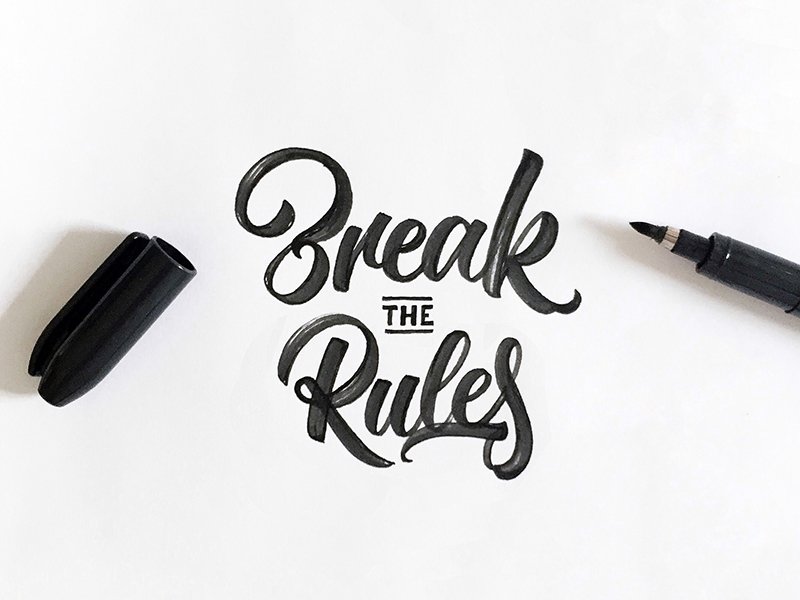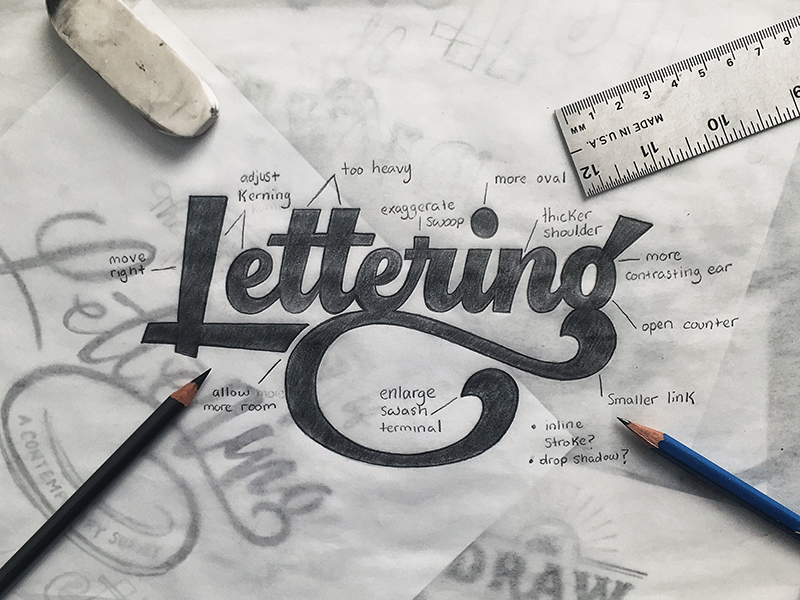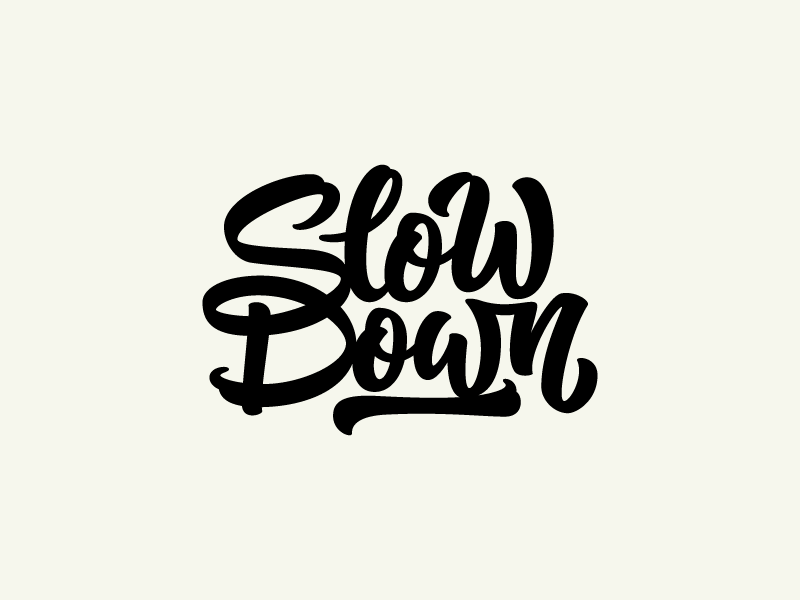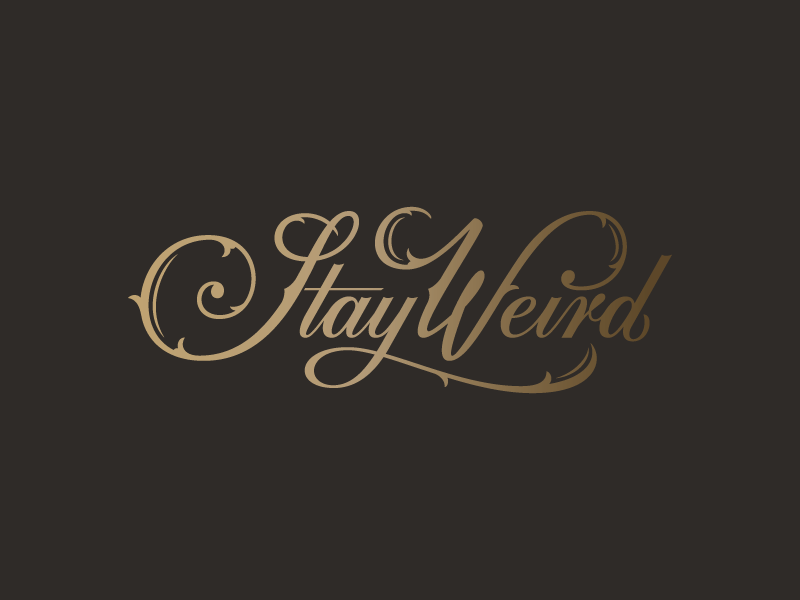
Lettering Legend - Colin Tierney Interview
It's great to be starting the new year with a new 'Lettering Legend'. Colin Tierney has been responsible for some very creative and original lettering over the past couple of years. He has also inspired many with his Crayola pen experimentations. Often specialising in brush style lettering Colin has produced a body of work to be proud of.
Although Colin makes and shares lettering work on a regular basis, he also finds time to work on another project called 'In A Brush', where he curates his own lettering and the lettering of others in raw forms. This project allows the viewer to see the curated lettering exactly how it is without being edited. So along with his work he provides a whole other resource full of great inspiration.
Discover advice on using new lettering tools, the advantages of seeing raw lettering, finding inspiration, overcoming a lack of inspiration and more in Colin's 'Lettering Legend' interview.
For those discovering a 'Lettering Legend' interview for the first time, a legend is someone who has inspired the lettering community. Be it through the work that they put out or through other things that they have created. You can get caught up in full by reading the 'Lettering Legends' introduction article, and if you'd like to read more 'Lettering Legend' interviews check out 'Resources'.
You discover a time traveling DeLorean car and can go back to any lettering era, which era would you visit and why?
This is a tough question because my love for lettering styles—based on an era—changes far too often. If I have to answer at this very moment, I’m particularly drawn to the Victorian era with the embellished letterforms, use of flourishes and intricate detail the characters invoke during this time period.
When looking at your Instagram feed and website portfolio it’s clear you have a wide range of skill within many areas of lettering, including illustrative lettering, brush lettering and calligraphy. Do you have an overall favourite style of lettering to work in?
It’s true, I like to experiment with various styles and instruments so that I have a broader range of knowledge when it comes to all things lettering and calligraphy. While I don’t like to limit myself within a specific niche, I am particularly drawn to calligraphy. Having a basic knowledge of how letterforms are constructed is far easier to understand when you are able to write individual letters with a calligraphic instrument. The foundation of calligraphy aids in the transition into illustrating letterforms.
For a little while now you’ve been creating lettering with Crayola pens, which aren’t the obvious tool choice. What have you gained from using Crayola’s, and what advice would you give those beginning practice with a new lettering tool that’s a little difficult to use or unfamiliar?
Yes! I’ve actually dubbed the name Crayoligraphy—or, the art of writing stylistically with a Crayola marker—and created a hashtag for anyone interested to use when posting their Crayola calligraphy. The learning curve from a brush pen to a Crayola marker is fairly steep. A brush is easier to write with because it allows for an easier thick-to-thin transition based on the applied pressure between up and down strokes. Conversely, a marker is more difficult to write with because the nib isn’t flexible which demands more hand and wrist movement. To emulate a brush stroke using a Crayola marker, one has to compensate for the stiffness by loosening the wrist.
By understanding this technique and applying these daily exercises, I am able to write significantly better regardless of the tool. It really shouldn’t matter what you use when it comes to lettering and calligraphy as long as the tool you use emits some kind of ink, paint, graphite, etc. I receive many questions from beginners about the kind of pen I use within my work, when the focus should be applied to practicing the fundementals of calligraphy by using whatever you have on hand.
‘In A Brush’ is a feature you've made where you show your lettering work in it’s rawest forms, what do you think beginners can learn from seeing raw letterforms compared to polished lettering pieces?
My love for hand lettering began when I first began seeing artist’s work in the most natural state through images of lettering sketches and written words. These photographs of raw, unedited characters sparked my interest and encouraged me to begin my own venture into lettering and calligraphy thus, I created In A Brush for this very reason. I think people are drawn to progression and beginners can appreciate the derivation of a digital piece because they are able to see that there is a process behind a finalized concept.
Finding or thinking of words and phrases to letter can sometimes be a struggle when inspiration is running dry. Where do your sources of inspiration come from, and if you ever struggle to find things to letter how do you overcome a lack of inspiration?
Practice everyday and reference other lettering artist’s work. I actually encourage copying work so that a novice can better understand how lettering is constructed. Of course—and this should go without saying—don’t ever publish any work that isn’t yours. After some time, you will begin to naturally apply these attributed ideas within your own work and it will all start to make sense.